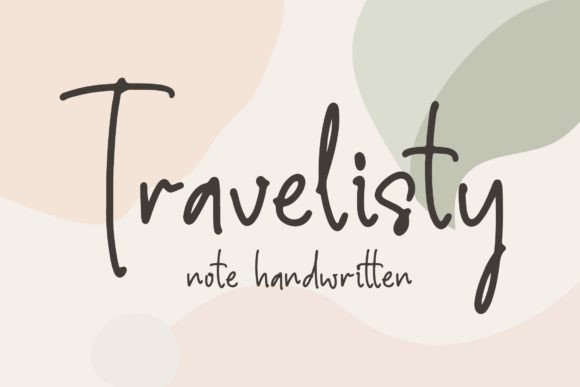
In a world where love blooms and hearts intertwine, Travelisty Font emerges as a radiant symphony of romance, capturing the essence of eternal affection with every stroke. This enchanting script, a creation of Glorytype Studio, unravels a tale of timeless beauty, inviting you to pen the most heartfelt sentiments with an air of elegance.
Travelisty's graceful curves dance across the page like a gentle caress, echoing the tender whisper of vows exchanged under moonlit skies. Its delicate lines, reminiscent of blooming petals, evoke a sense of joy and anticipation, mirroring the excitement of embarking on a journey of love. With each letter you trace, Travelisty transforms your words into an exquisite tapestry of emotions, a testament to the unbreakable bond you share.
Imagine your wedding invitations, adorned with Travelisty's enchanting allure, becoming cherished keepsakes that carry the echoes of your love story for generations to come. Its versatility extends beyond invitations, making it an ideal companion for cards, posters, and any design that craves a touch of romance.
Embrace Travelisty as your creative muse, allowing its ethereal charm to elevate your designs to new heights of elegance. Let your imagination soar as you craft enchanting logos, alluring branding, and captivating social media posts that exude a timeless charm. With Travelisty, every project becomes a celebration of love, a testament to the power of human connection.